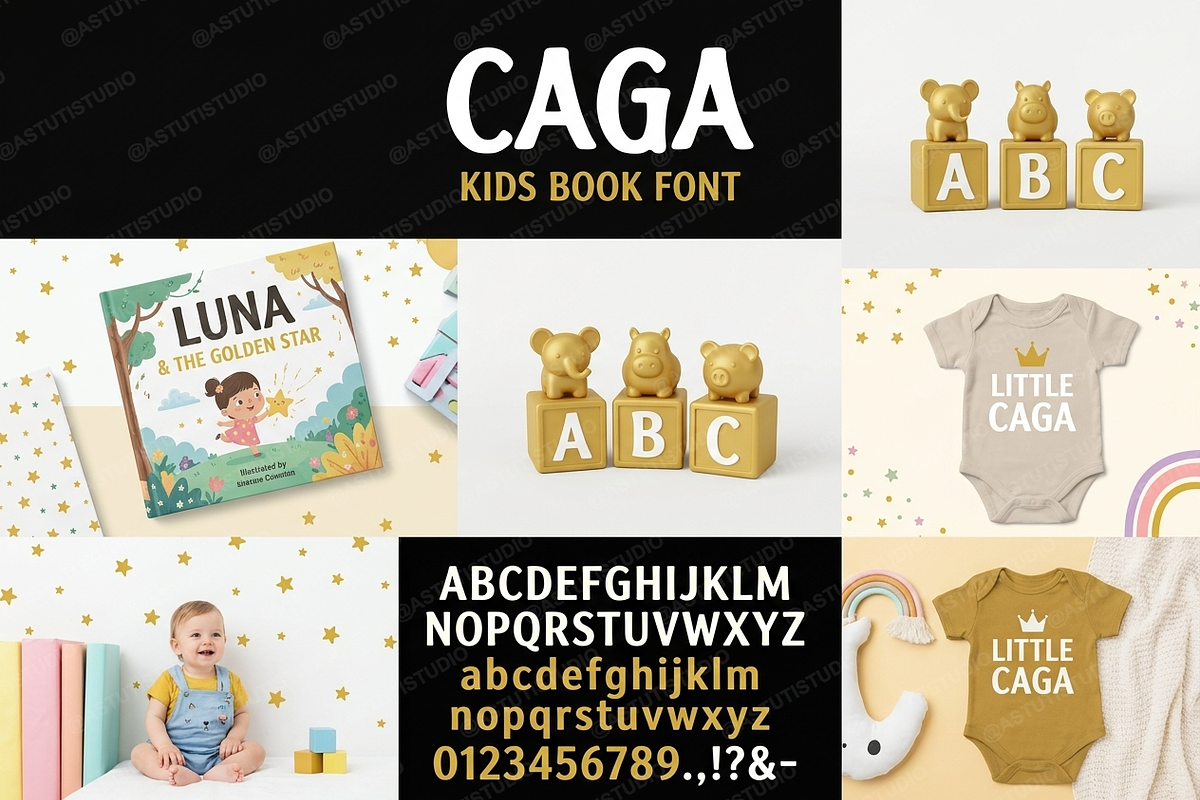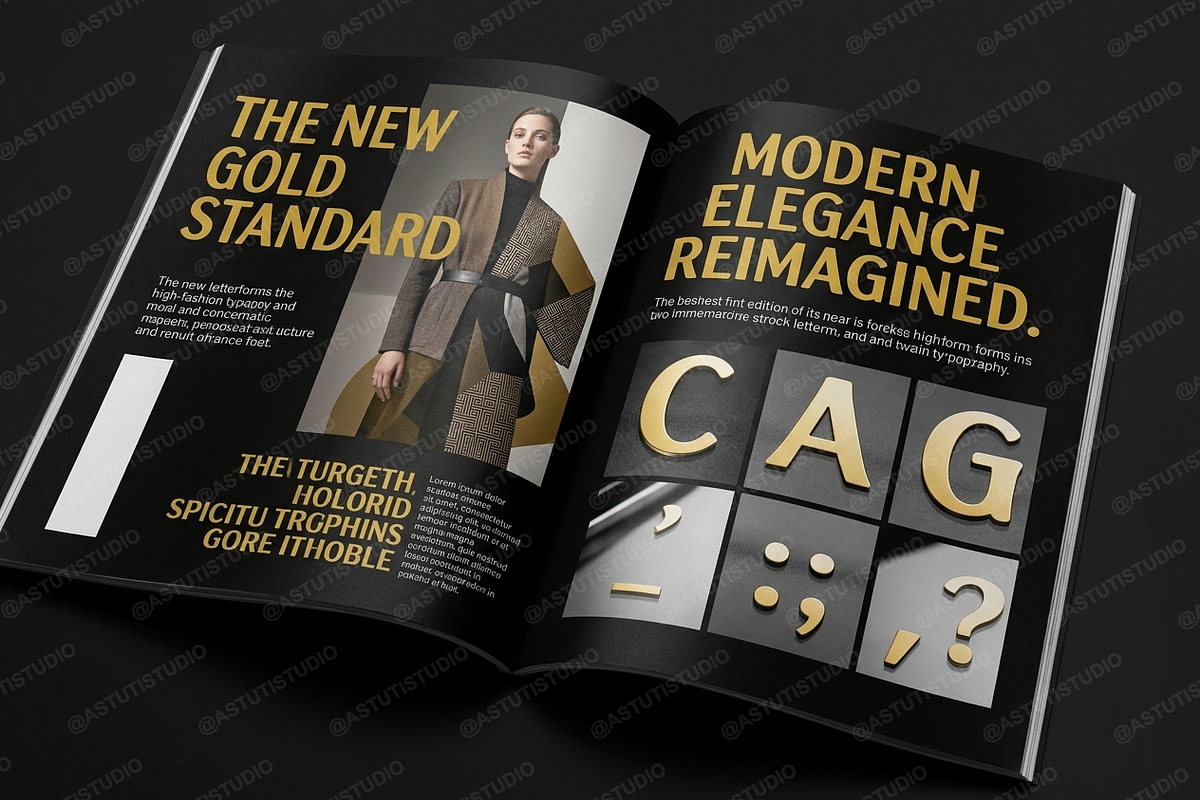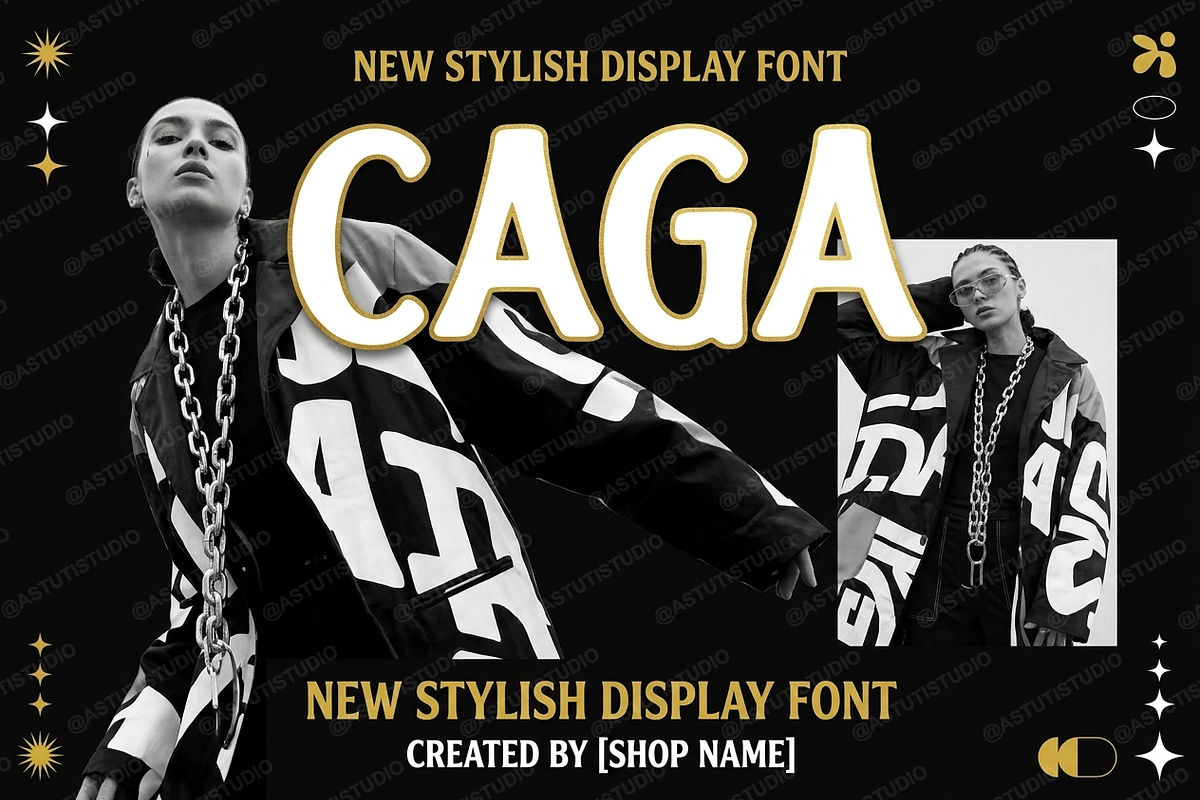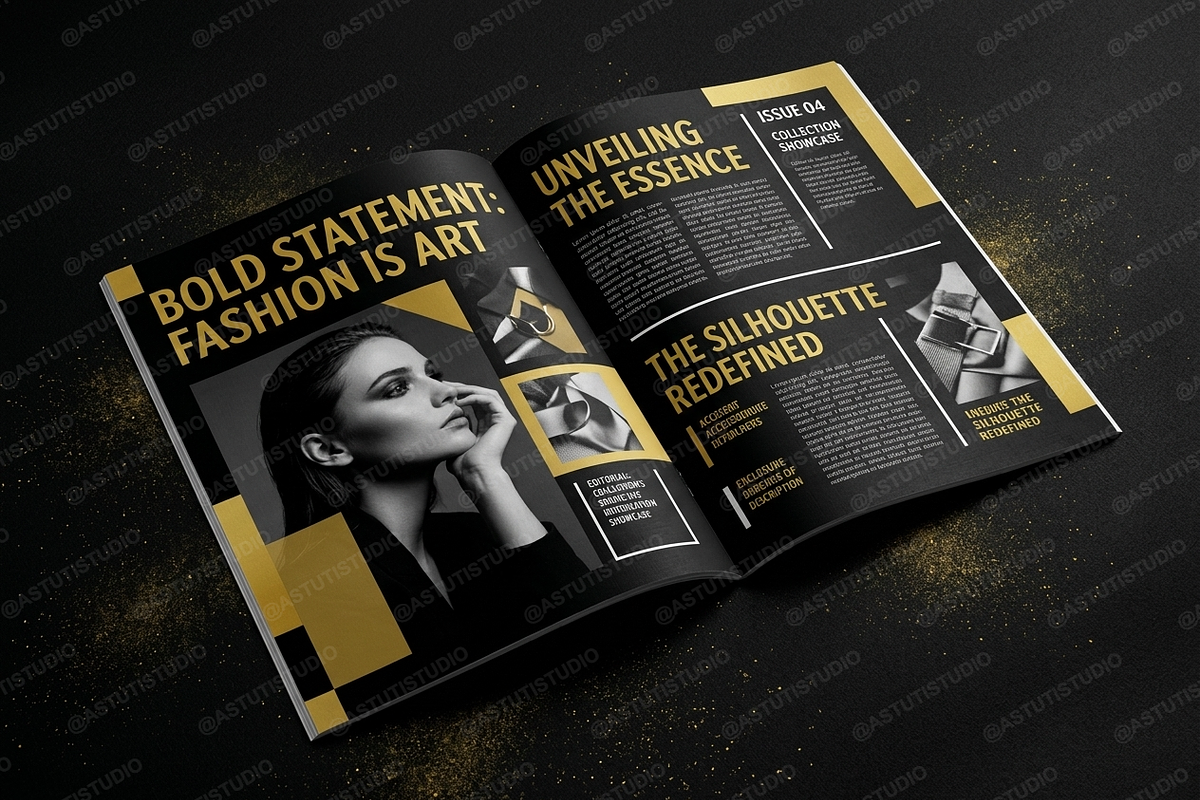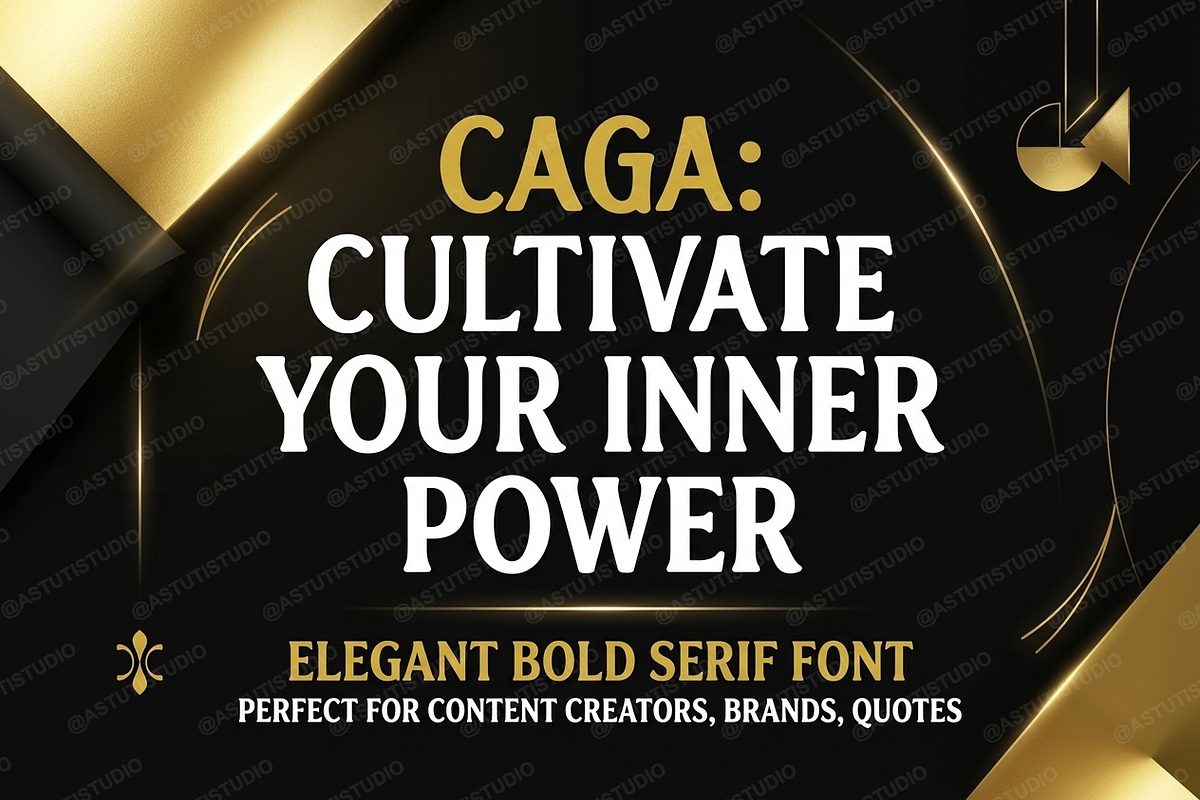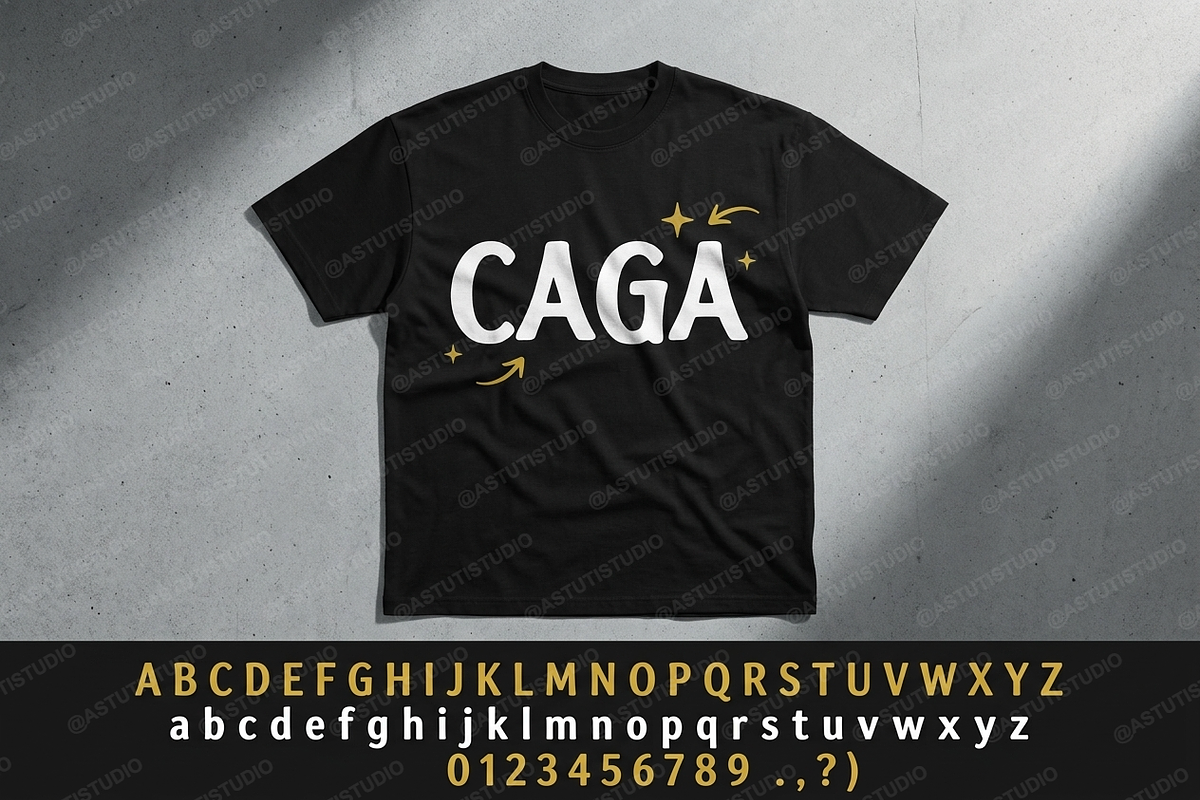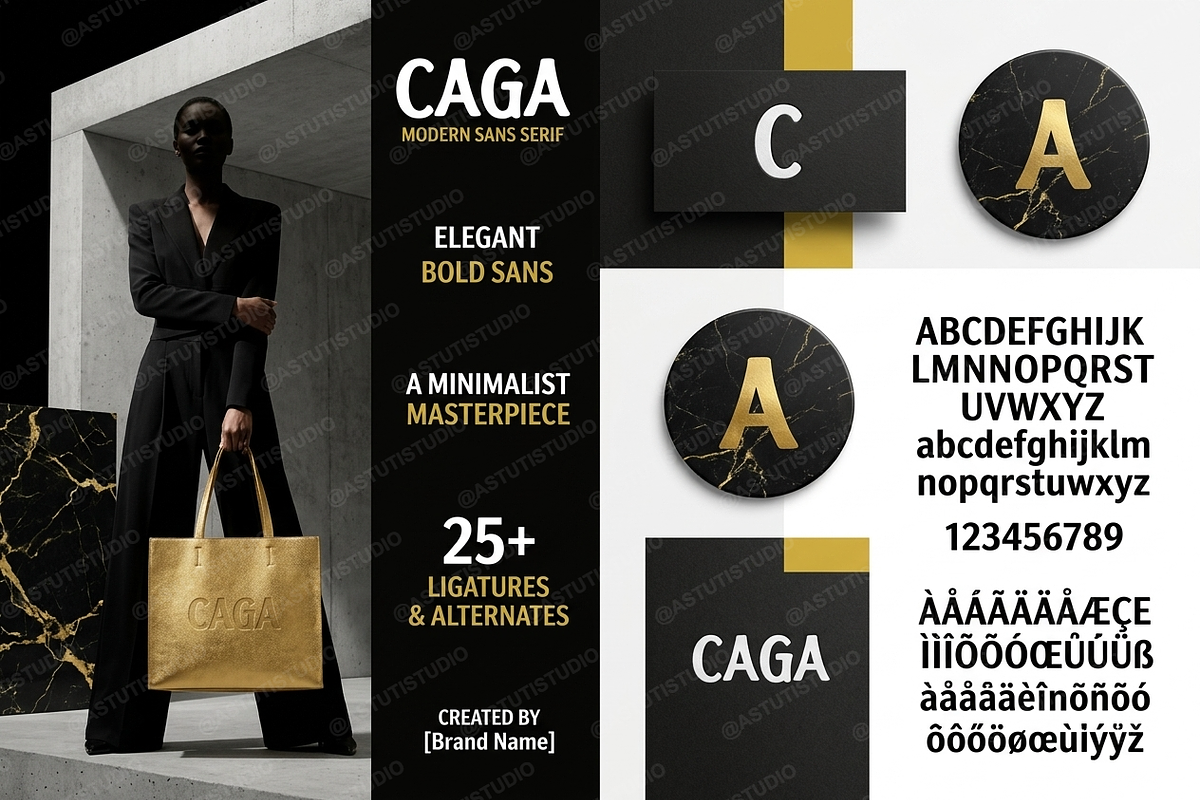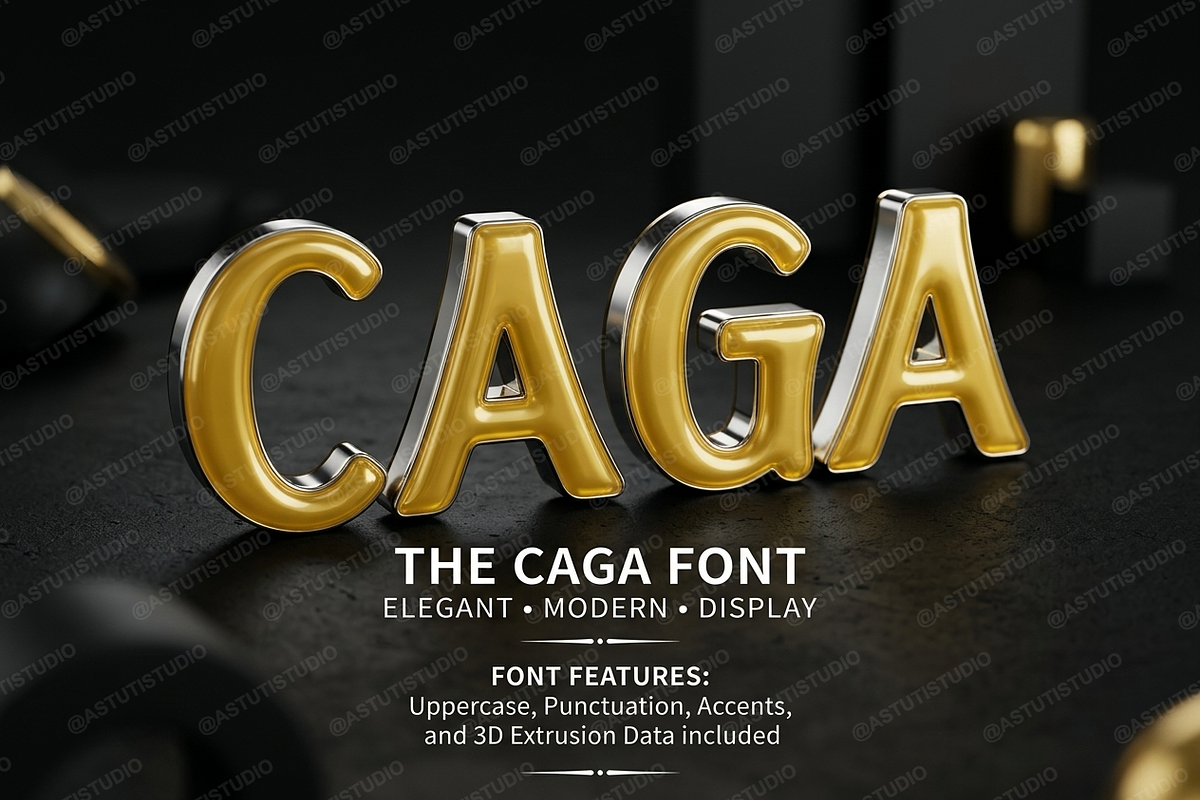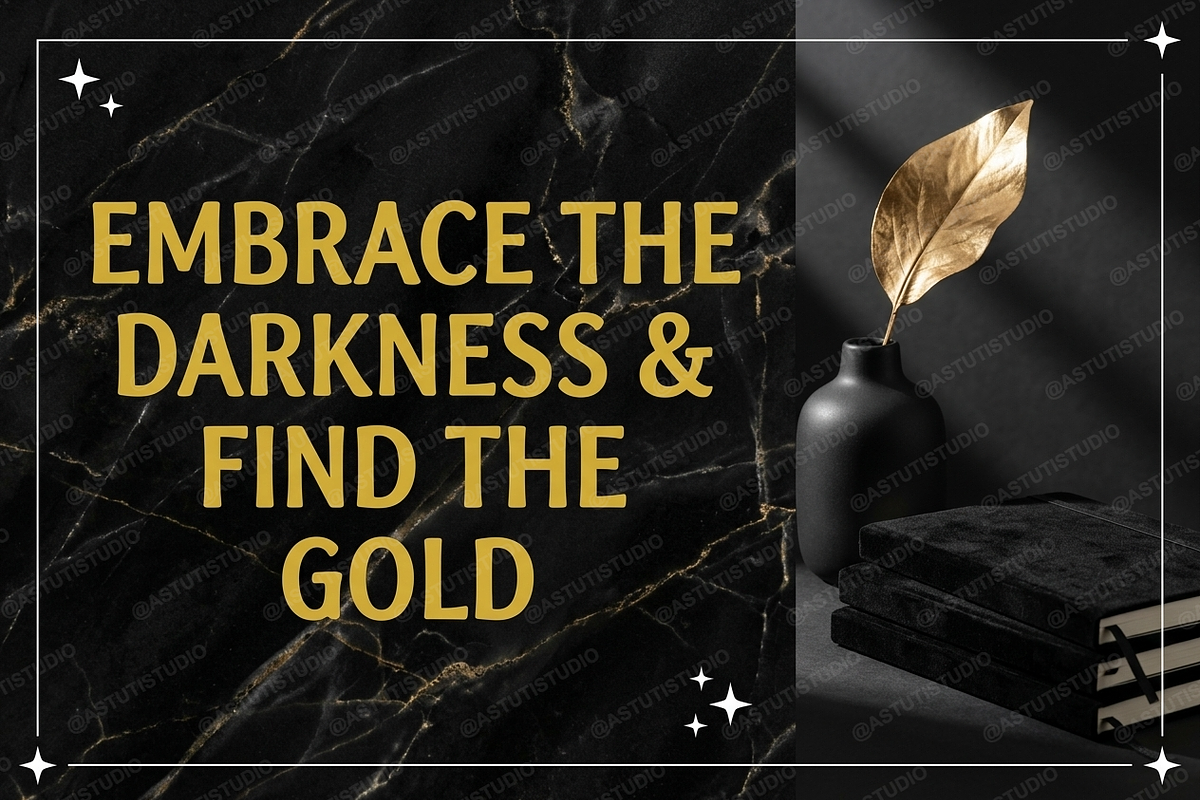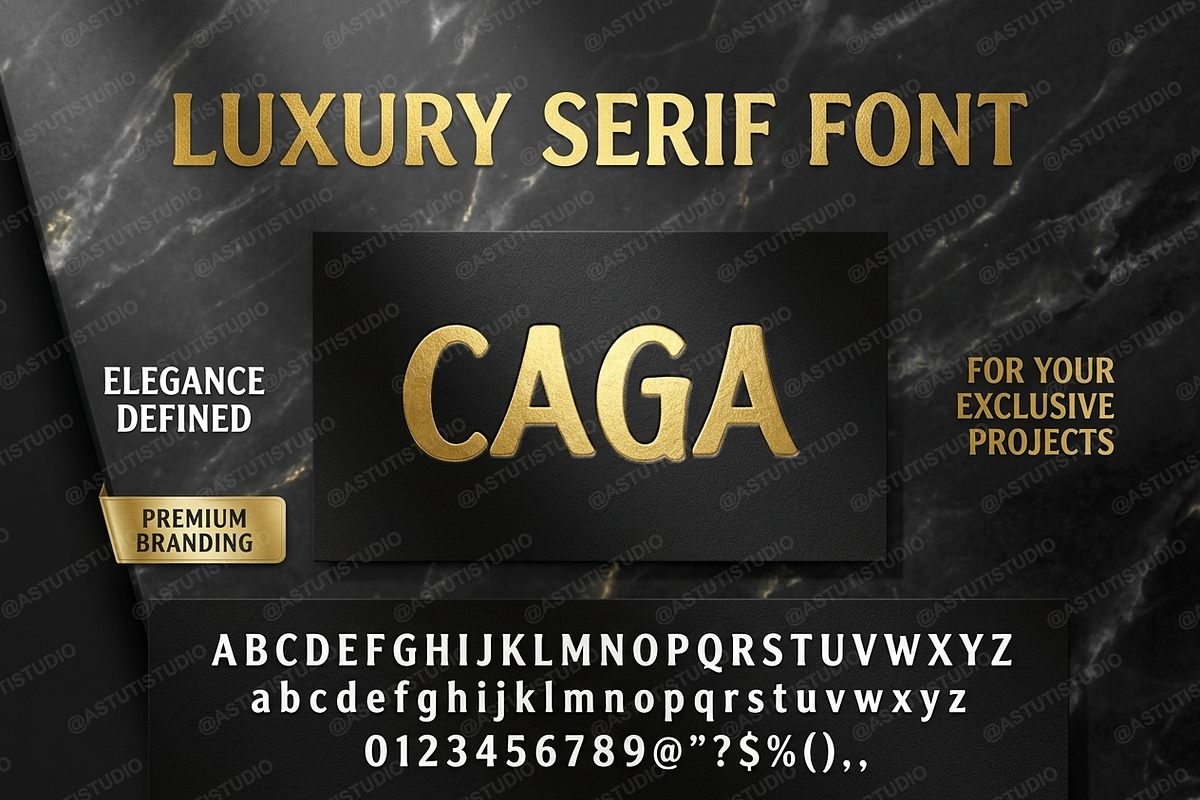
Caga - Elegant Modern Serif Typeface
Introduction
Caga is a sophisticated and high-contrast serif typeface crafted for premium aesthetics. Drawing inspiration from timeless editorial design, Caga balances sharp terminals with soft, flowing curves to create a look that is both authoritative and approachable. It is the ideal choice for designers looking to elevate luxury branding, high-fashion layouts, and curated social media presence.
- High-contrast letterforms for a premium feel
- Unique discretionary ligatures for custom looks
- Comprehensive multilingual support
- Carefully balanced kerning and spacing
- Versatile for both display and body text
- A full suite of uppercase and lowercase characters
- Numbers, punctuation, and specialized symbols